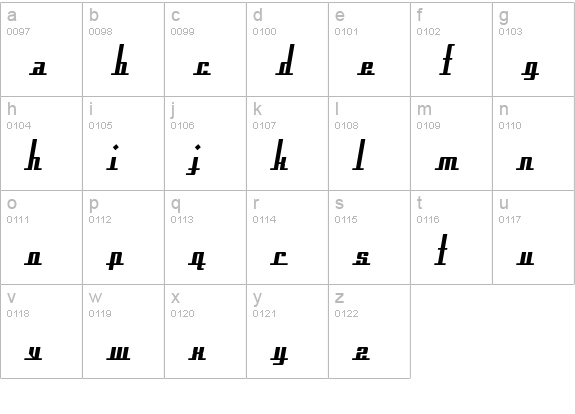
Americana Dreams Bold Font Details
Americana Dreams Bold is a strong, high-contrast variant in the Americana typeface family \xE2\x80\x94 well suited to headlines, attention-grabbing titles, and strong calls-to-action.
Americana Dreams Bold font is a versatile and eye-catching typeface that captures the essence of traditional American design with a modern twist. Its bold and sturdy letterforms exude a sense of strength and confidence, making it perfect for headlines, logos, and branding projects. The font's timeless appeal and classic Americana style make it a popular choice for a wide range of design applications, from posters and packaging to apparel and signage. Whether you're working on a vintage-inspired project or looking to add a touch of Americana flair to your designs, Americana Dreams Bold font is sure to make a statement. Best of all, Americana Dreams Bold font is completely free to download at FontsMarket.com, making it accessible to designers of all skill levels. So why wait? Bring a touch of Americana charm to your next project with Americana Dreams Bold font today!